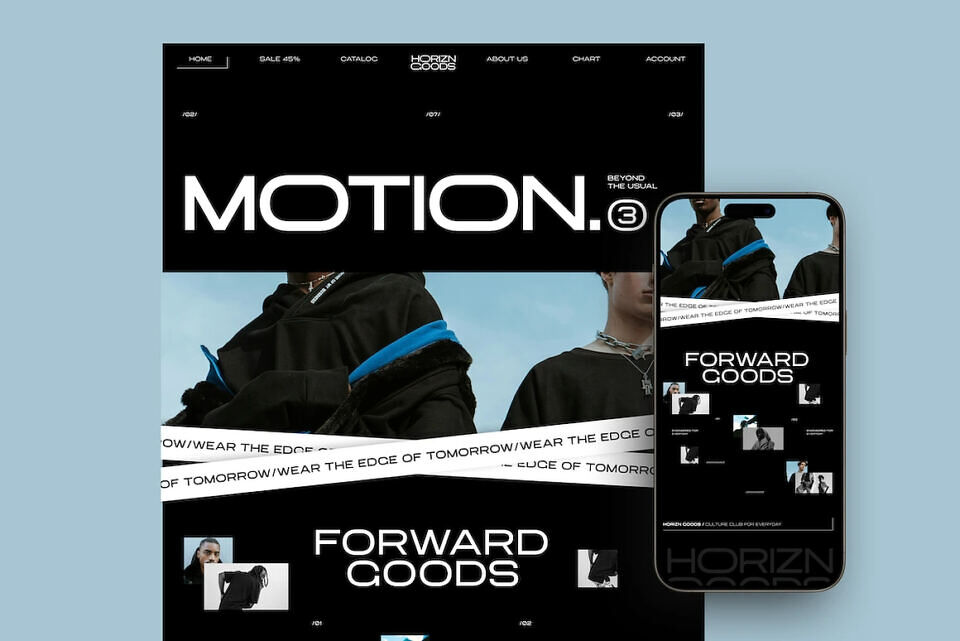
GC EPIC PRO Vol. II – Future Extended Sans marks the next evolution of the EPIC PRO typeface, expanding the original concept with a broader family system and refined glyph construction. This update is designed to provide greater flexibility, consistency, and precision for contemporary and future-facing design projects.
With its futuristic character, wide letterforms, and confident geometry, GC EPIC PRO Vol. II is ideal for branding systems, headlines, posters, editorial compositions, and modern digital interfaces. The expanded family empowers designers to create clearer hierarchy and cohesive visual systems while maintaining a strong, forward-looking identity.